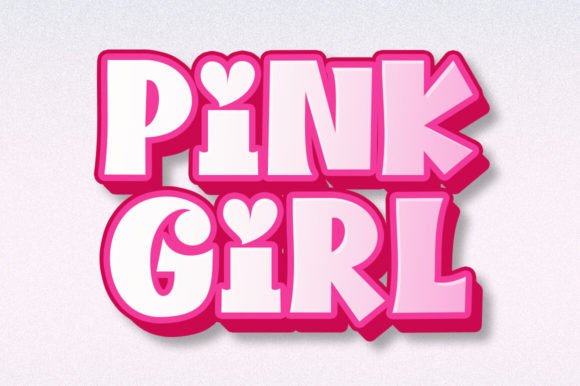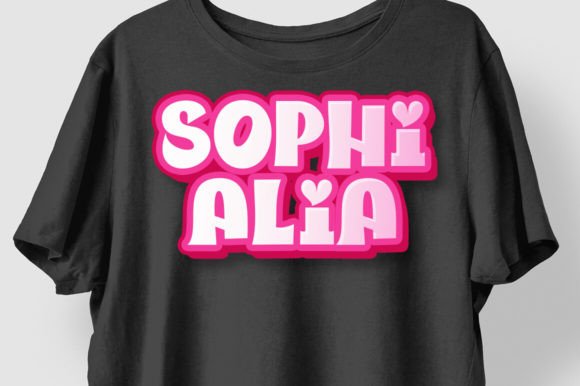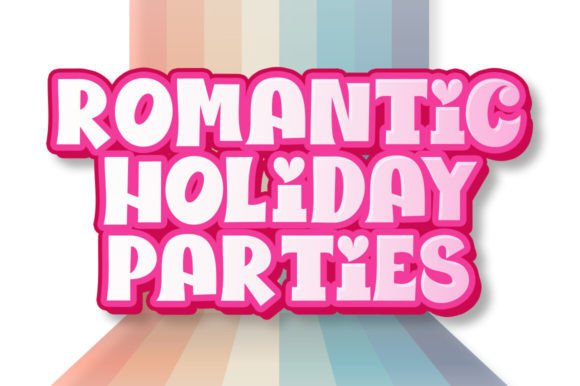
Pink Girl Font
About the Pink Girl Font
Explore the possibilities with Pink Girl Font, a font that offers both beauty and functionality. Pink Girl is a cute and charming display font. Whimsical and a little quirky, this font will brighten up any of your designs. Add it with confidence to your projects, and you’ll love the results.
Pink Girl’s playful charm makes it ideal for headlines, short text blocks on branding materials, or eye-catching elements in packaging design. Its whimsical nature, however, makes it less suitable for body text or UI elements where readability is paramount. Extended use could hinder legibility.
Consider pairing Pink Girl with a clean sans-serif like Open Sans for a balanced contrast, or a classic serif such as Garamond for a touch of sophistication. For a more playful feel, a rounded geometric sans-serif would also complement its quirky personality.
The font exudes a friendly, youthful energy. It’s perfect for projects targeting a female demographic or brands focusing on sweetness, fun, and lightheartedness.
Pink Girl Font Usage Examples
Pink Girl Font Example